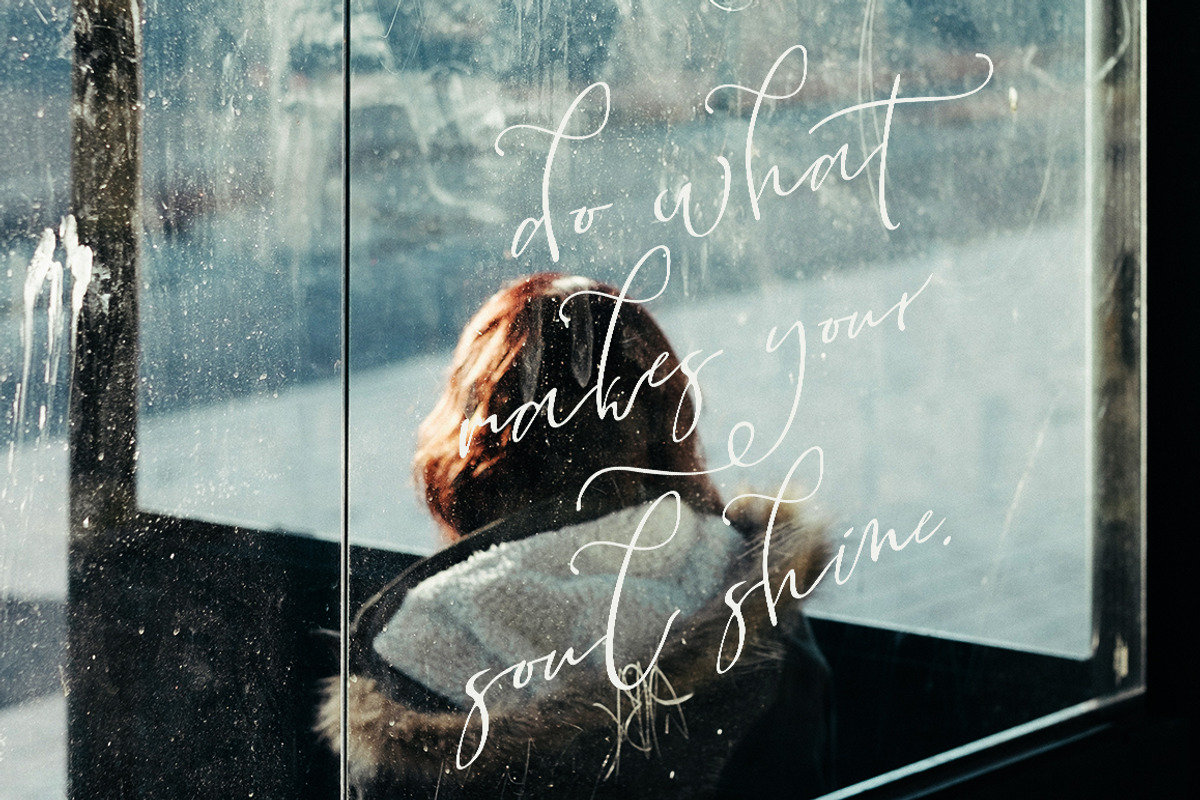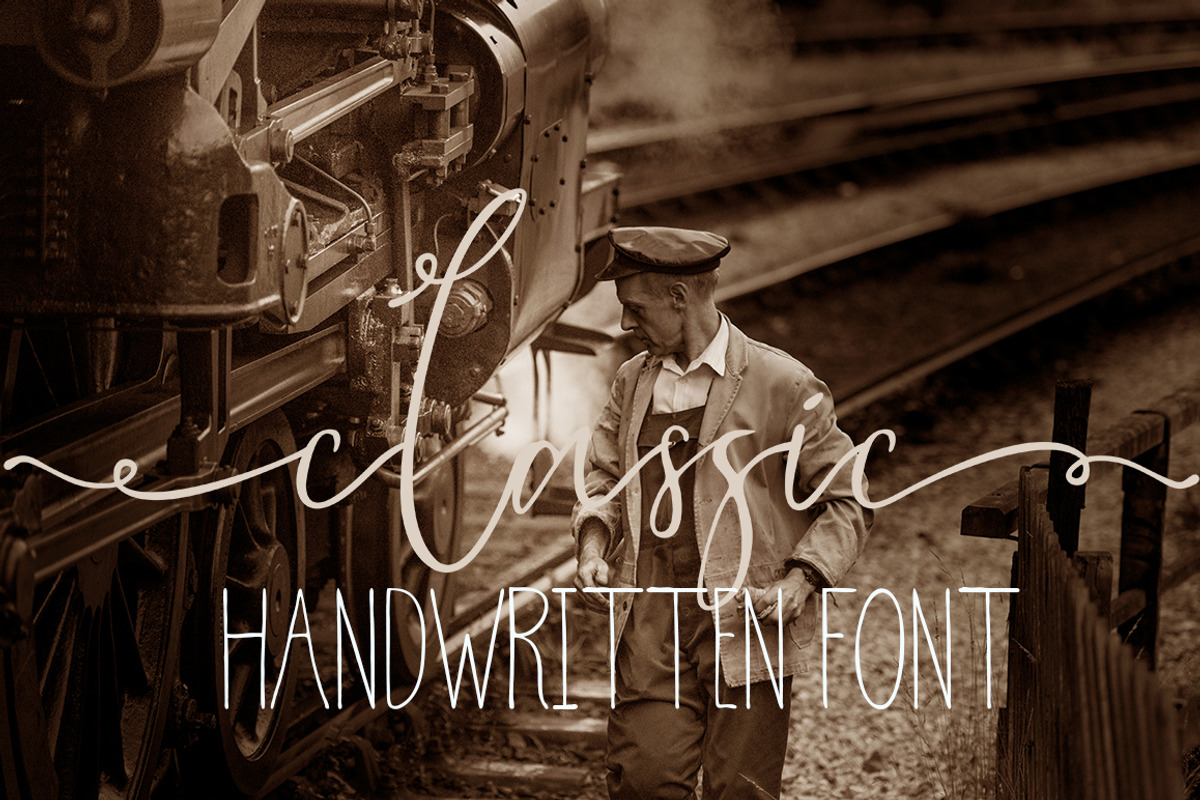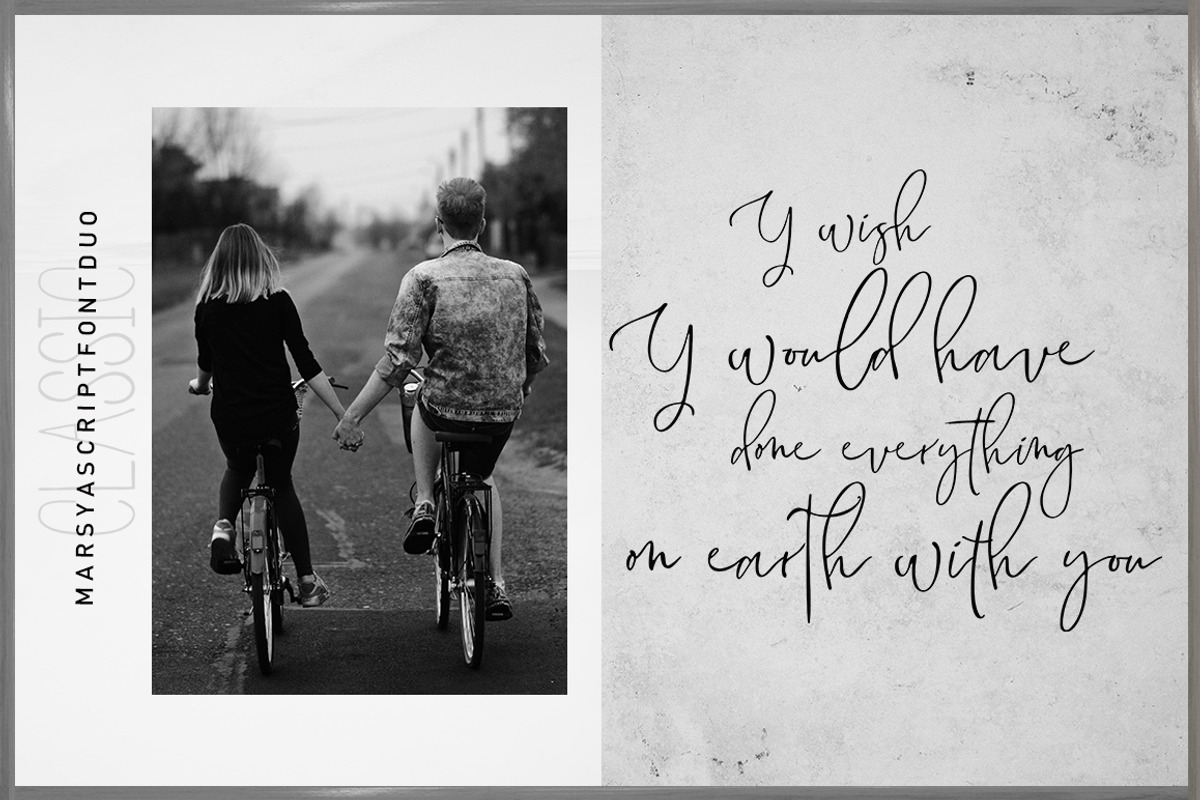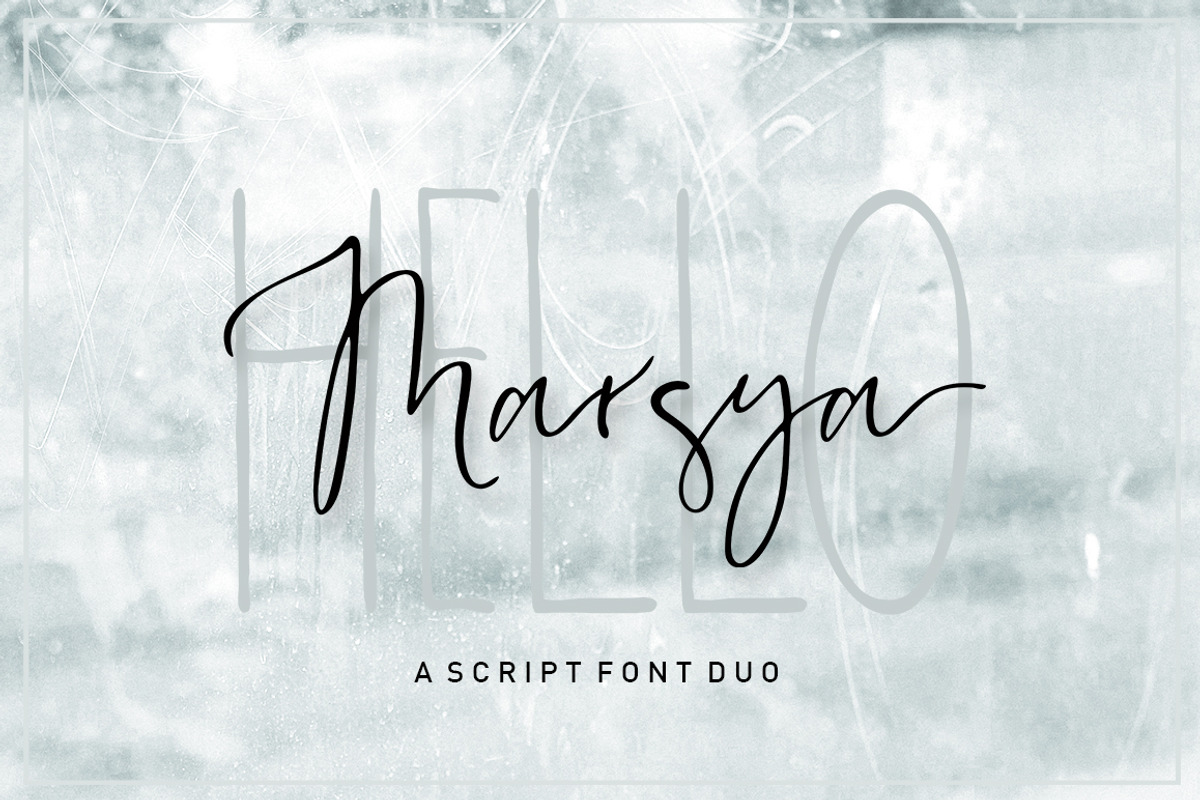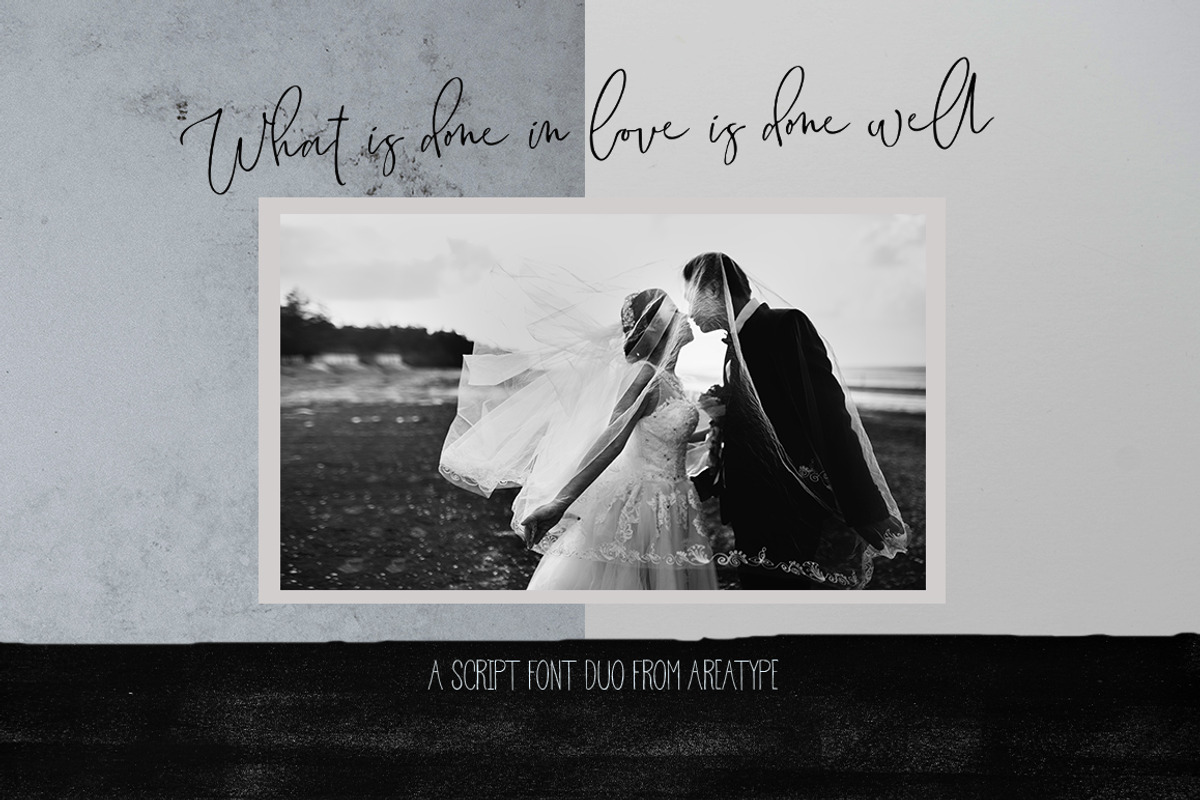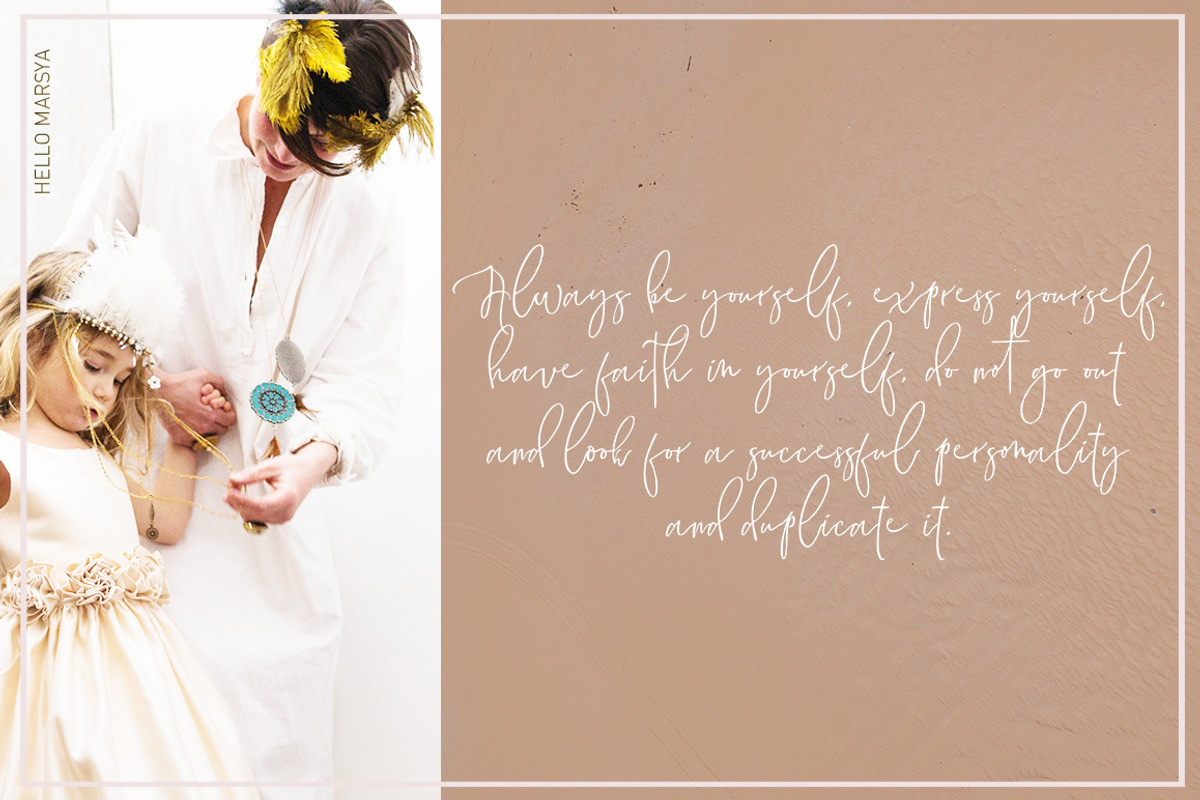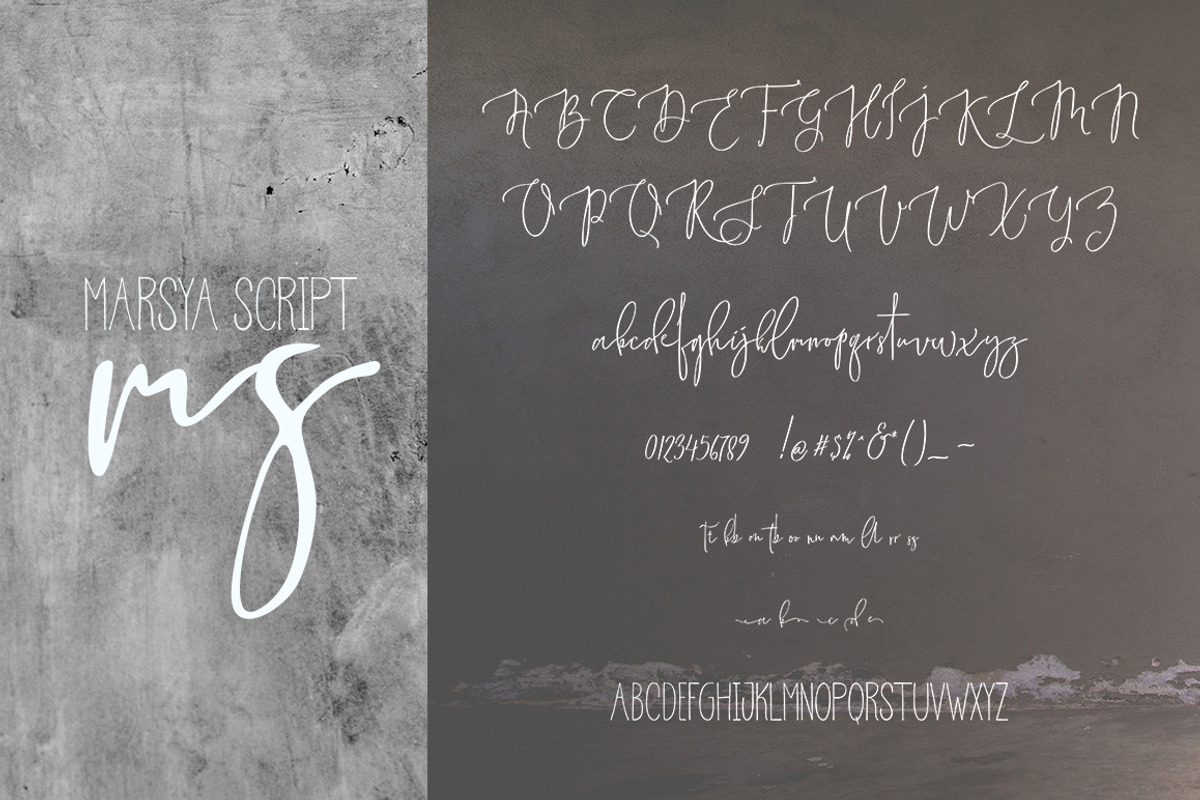
Marsya Script Font Duo
Marsya Script is a brush font with a lot of alternates & ligatures., luxurious and elegant with a dancing baseline. Also available Marsya Sans to help you mix and match it to fit your creative work in harmony. perfect for Branding, Logos, Greeting Cards, Wedding Stationery, Quotes etc.
Why Marsya Script Font Duo is worth a look
Marsya Script Font Duo by Areatype fits naturally into Branding, posters, packaging, typography.